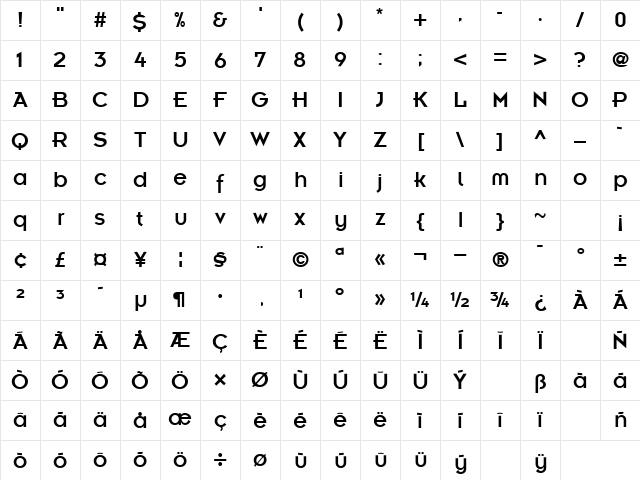
Helter Normal
Helter Family
Design Context for Helter
Helter is a composed and adaptable typeface that performs quietly and consistently across a wide range of design contexts.